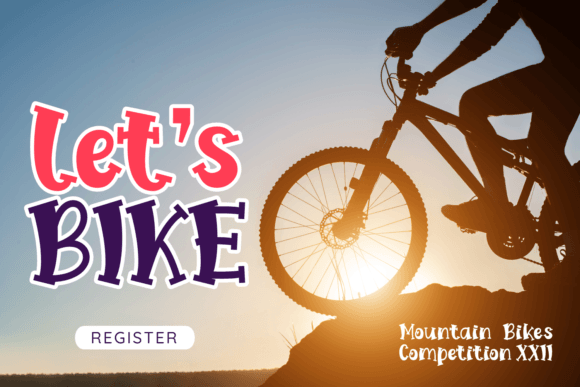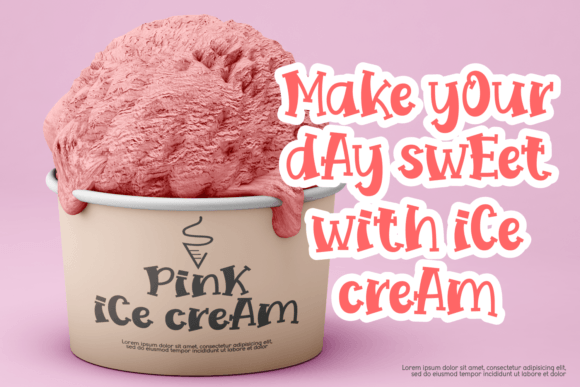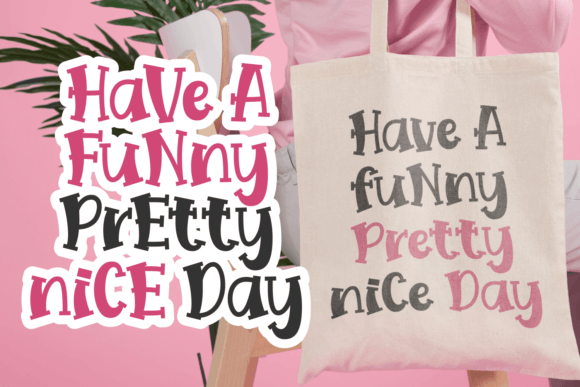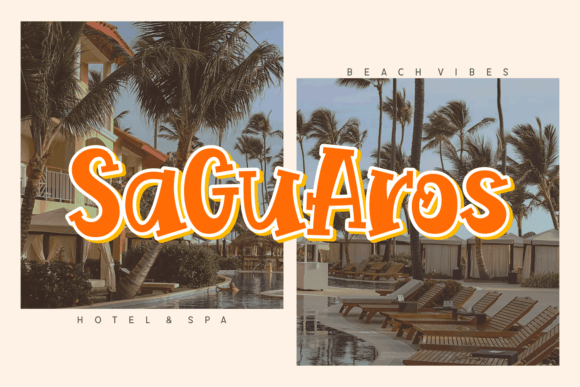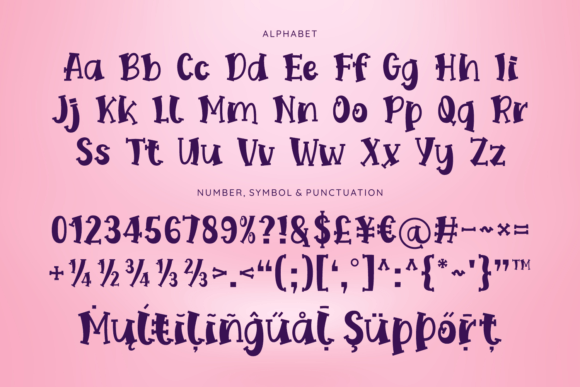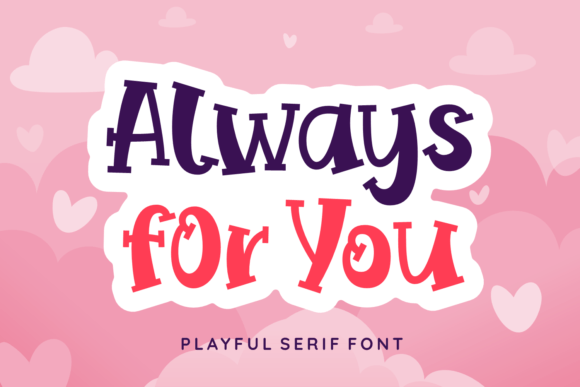
The Ultimate Font for Creative Expression: Always for You
I’ll never forget the time I was working on a project for a client who wanted a playful, yet elegant font to match their brand’s quirky personality. I scoured the internet for hours, trying out font after font, but nothing seemed quite right. That was until I stumbled upon Always for You, a game-changing font that exceeded my expectations in every way. In this article, I’ll share my experience with this incredible font, and show you how to make the most of its amazing features.
A Personal Review: What I Love About Always for You
So, what makes Always for You so special? Here are just a few things that I love about this font:
- ✨ Unique and playful design: Always for You has a one-of-a-kind look that’s perfect for designs that need a bit of personality.
- ✅ PUA encoded for easy access: With PUA encoding, you can easily access all of the glyphs and swashes, making it a breeze to customize your designs.
- 💫 Versatile and adaptable: Whether you’re going for a funky, vintage, or elegant look, Always for You works incredibly well in many different scenarios.
While Always for You is an amazing font, there are a few small quirks to be aware of:
- 🤔 Some characters may require manual kerning: As with any font, you may need to adjust the kerning on certain characters to get the perfect look.
- ⚠️ Not suitable for small text sizes: Due to its playful design, Always for You may not be the best choice for small text sizes, as it can become difficult to read.
The Designer Inspiration Behind Always for You
While the true story behind Always for You remains a mystery, it’s easy to imagine that the designer was inspired by the world of playfulness and creativity. Perhaps they wanted to create a font that would bring a smile to people’s faces, or one that would help designers add a bit of personality to their work. Whatever the inspiration, it’s clear that Always for You is a font that’s here to stay.
| Is Always for You a script font? | While Always for You has some script-like elements, it’s not a traditional script font. It’s more of a playful, display font that’s perfect for adding personality to your designs. |